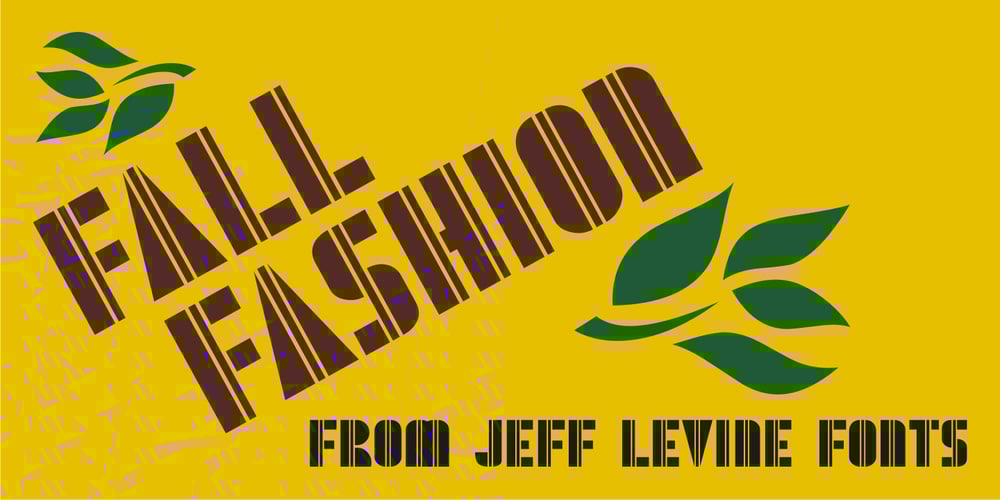
Fall Fashion JNL
Fall Fashion JNL Font Family was designed by published by Jeff Levine. Fall Fashion JNL contains 1 styles and family package options. Stencil-like lettering appearing on a 1930s WPA (Works Progress Administration) poster for the Pennsylvania Game Commission saying “Protect Our Birds” is the basis for Fall Fashion JNL.